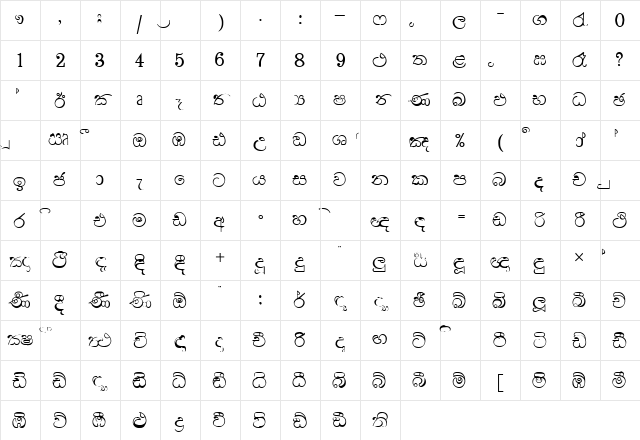
Complete Ridi 18 Plain glyph index. Displaying only characters natively supported by Ridi 18 Plain font.
Ridi 18 is a composed and adaptable typeface that performs quietly and consistently across a wide range of design contexts.